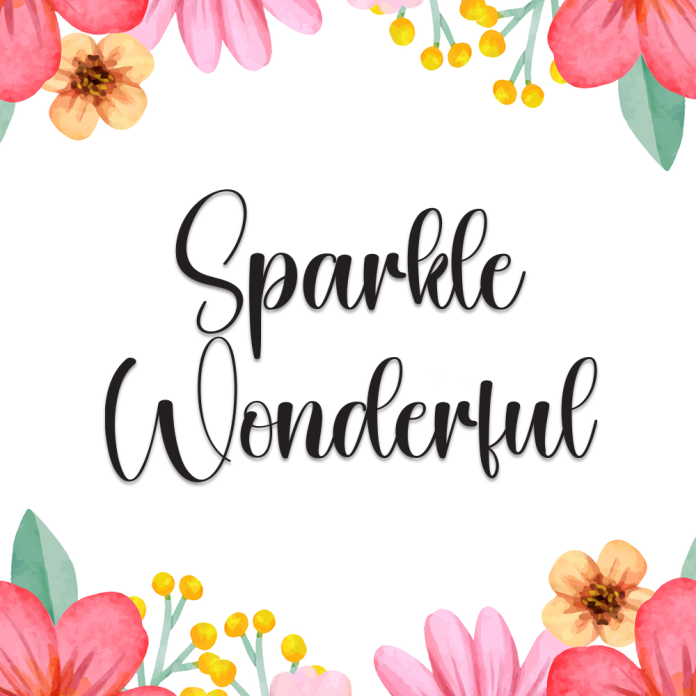
Sparkle Wonderful is a charming and joyful handwritten font that radiates happiness and creativity. With its bouncy letterforms and sparkling personality, this font is perfect for children’s projects, birthday invitations, quotes, social media graphics, and branding that needs a cheerful, handmade vibe.
Whimsical and joyful strokes
Hand-drawn style with a fun, light-hearted feel
Great for playful branding, kids’ themes, and creative designs
Add a touch of sparkle and personality to your words with the fun and fabulous Sparkle Wonderful.